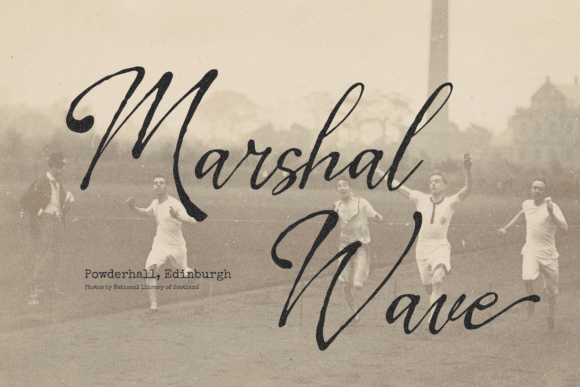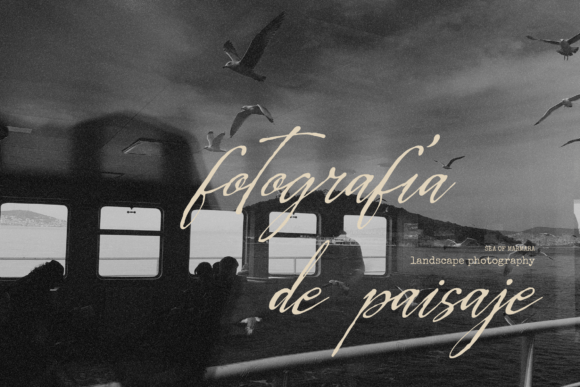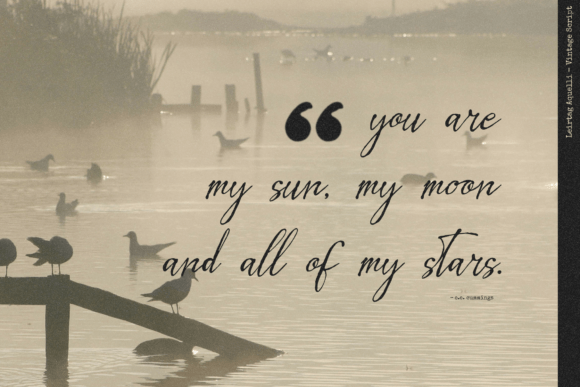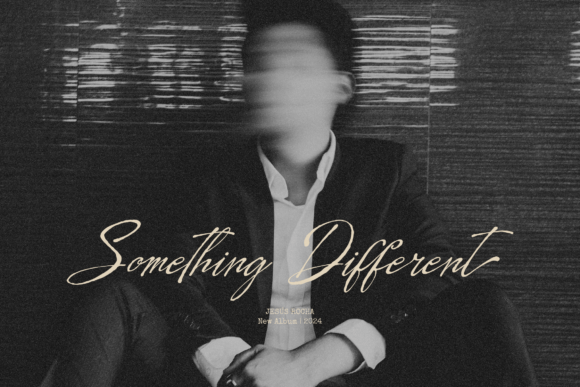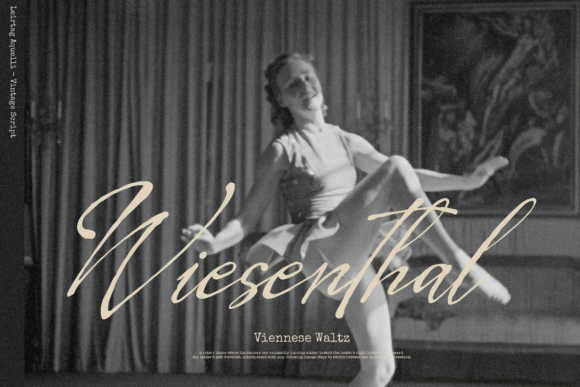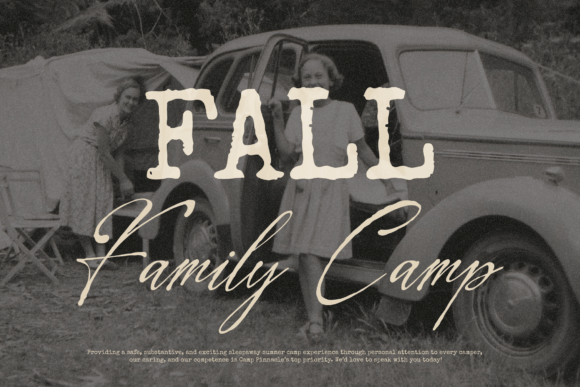
Introduction to Leirtag Aquelli Font
Leirtag Aquelli is a stylish vintage script font with elegant, flowing letters.
Its classic, hand-drawn look makes it perfect for creating a nostalgic feel in designs like invitations, logos, or posters .
Key Features of Leirtag Aquelli Font